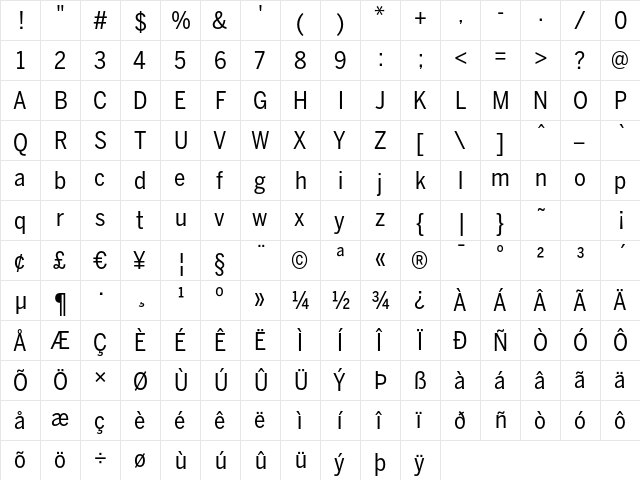
BentonSans Cond Regular Regular
| Foundry | The Font Bureau, Inc |
| Designer | Cyrus Highsmith, Tobias Frere-Jones, and Font Bureau |
Design Context for BentonSans Cond Regular Typeface
BentonSans Cond Regular is a composed and adaptable typeface that performs quietly and consistently across a wide range of design contexts. The condensed width makes it efficient for tight spaces without sacrificing legibility.